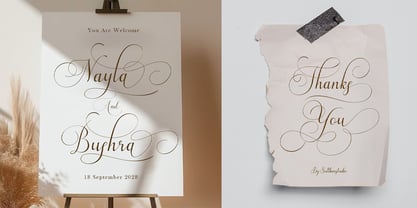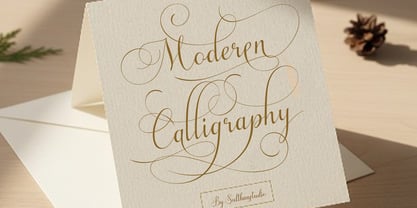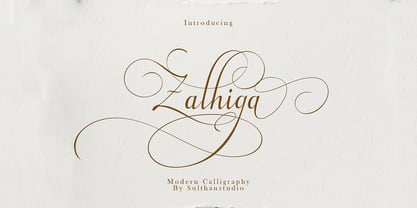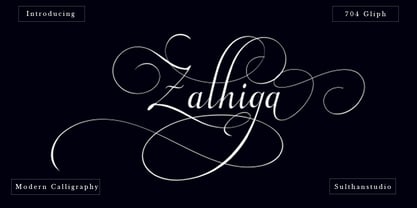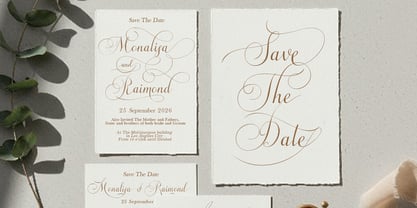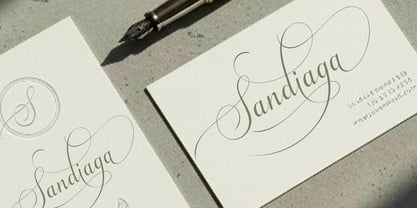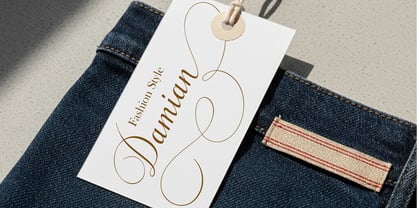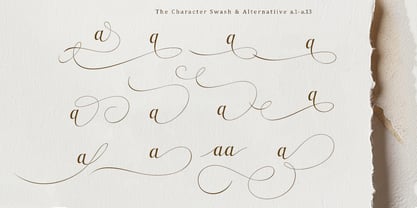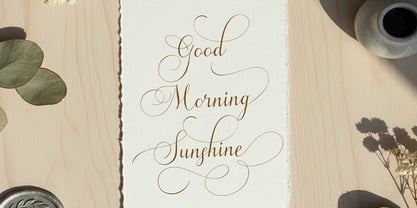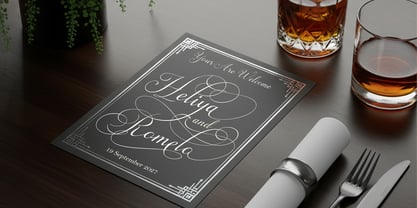
Zalhiga
by Sulthan Studio
The Zalhiga Font Family was designed by Nasrullah and published by Sulthan Studio. Zalhiga contains 1 styles. More about this family
Zalhiga Modern Calligraphy Characteristics: This font features a very elegant and flowing cursive style. Its main characteristic is its dramatic and long swashes, which are circular and curved strokes that connect and decorate the letters, giving them a luxurious and romantic look. The strokes appear smooth and graceful. Special Features: This font has 704 Glyphs (704 Characters), indicating a rich typographical feature, such as alternate characters, ligatures, and symbols, allowing users to create highly customized and unique text compositions. Impression: It gives off an exclusive, artistic, and elegant feel, making it perfect for projects that require a touch of personalization and luxury. Suitable for: The Zalhiga font is ideal for designs that demand elegance, such as: Invitations: Especially for weddings or formal events. Branding & Logos: For luxury brands, jewelry, or premium products. Certificates & Diplomas: For a classy look. Quotes & Typography Art.
Designers: Nasrullah
Foundry: Sulthan Studio